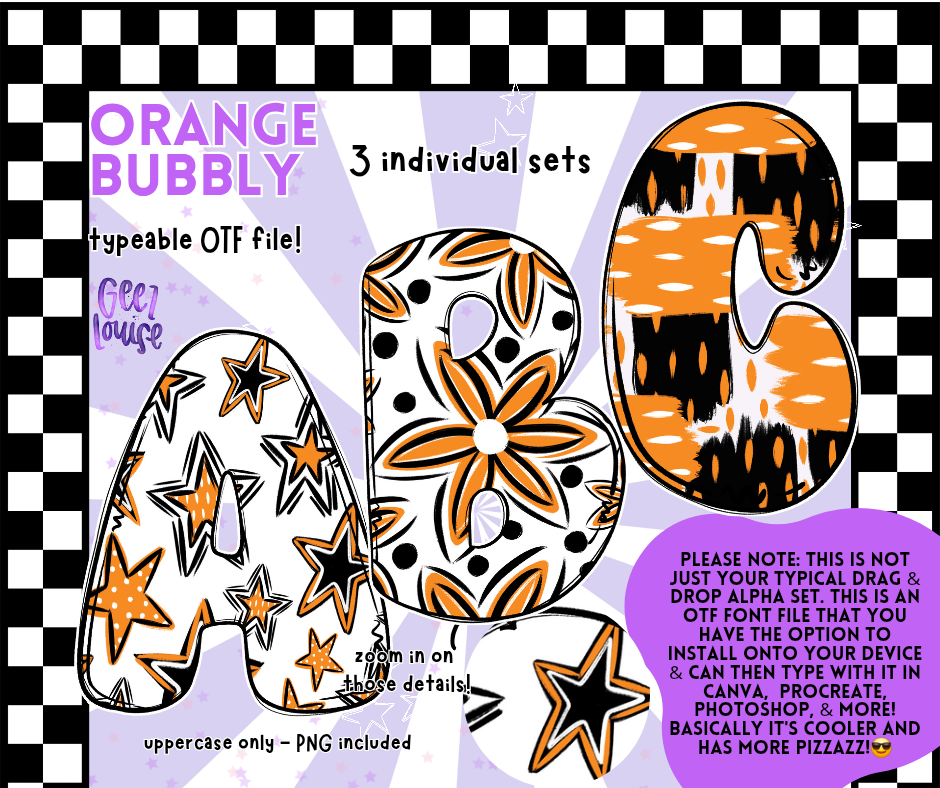
Say hello to Orange Bubbly—a juicy, joy-packed font that’s bursting with retro charm and Halloween sass. With bold patterns, playful textures, and a color palette that screams “fall, but make it funky,” this font is ready to steal the spotlight.
• Uppercase letters only
• 3 individual sets with unique orange, black, and white patterns
Each letter is a mini moodboard—stars, florals, abstract swirls, and checkered chaos all wrapped in a bubbly silhouette. Whether you're designing merch, invites, or digital art, Orange Bubbly brings the perfect mix of nostalgia and edge.